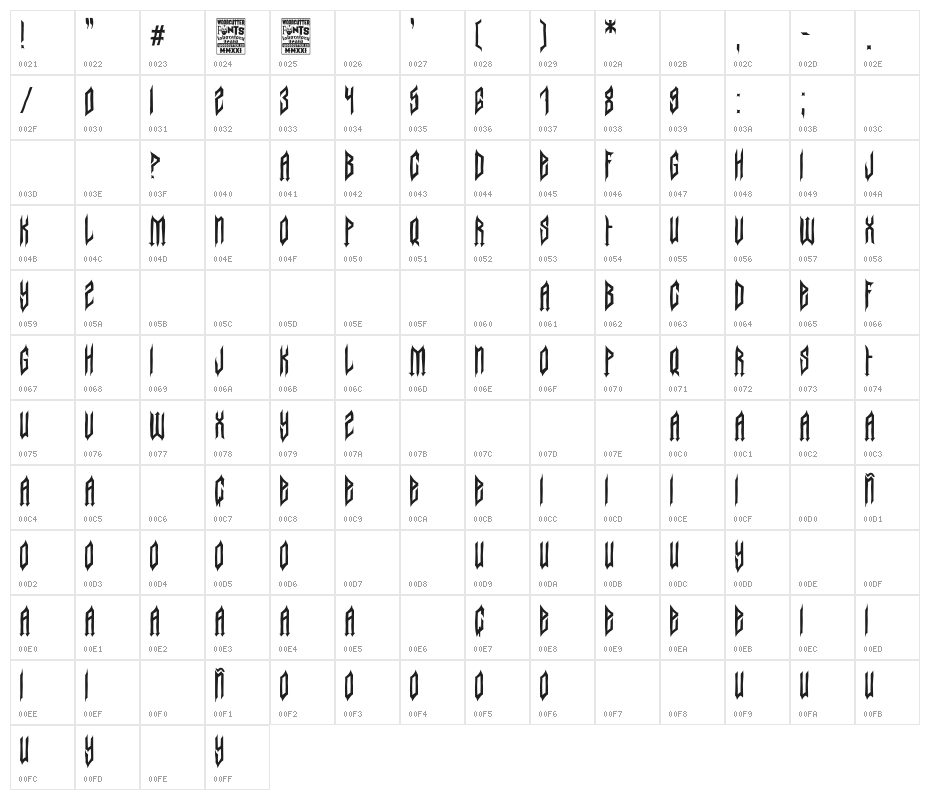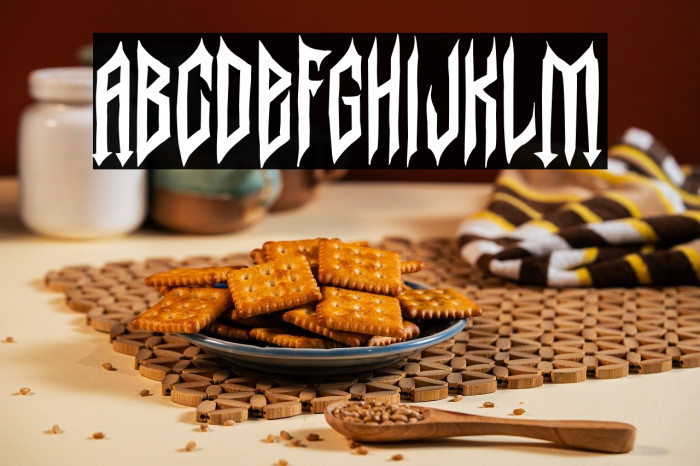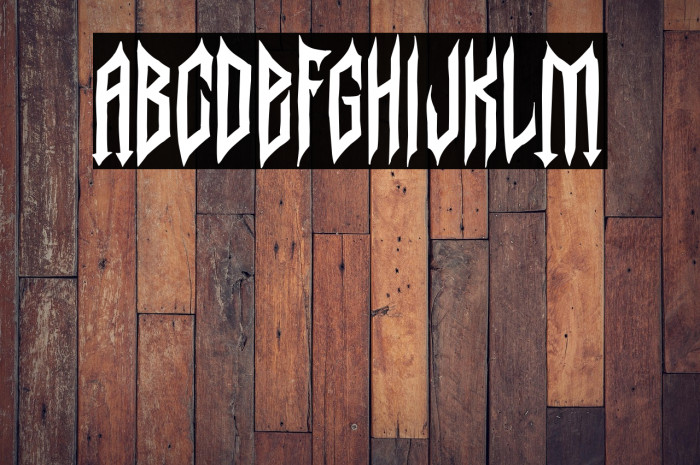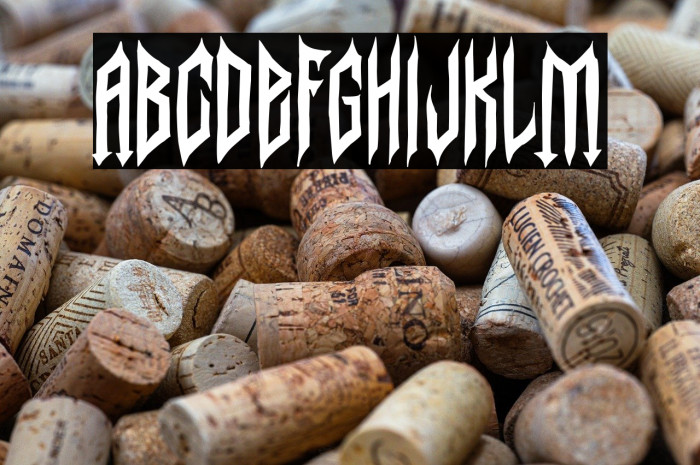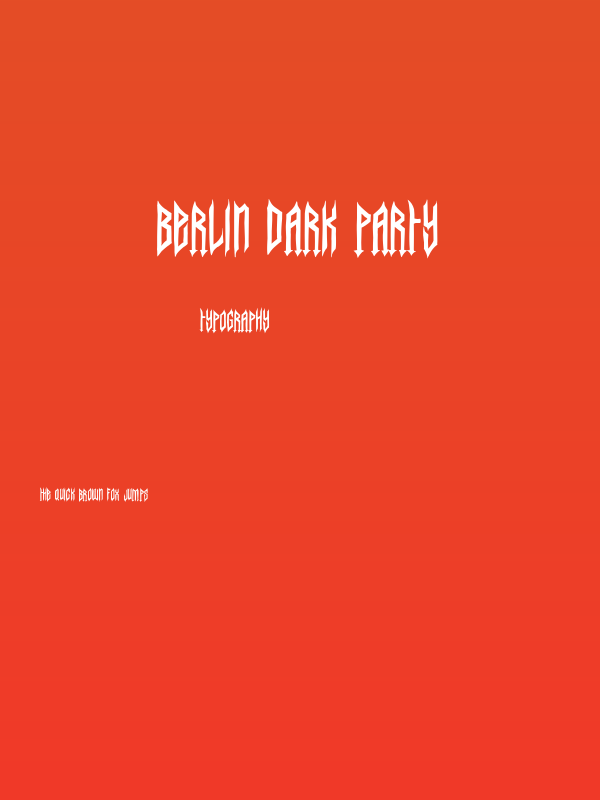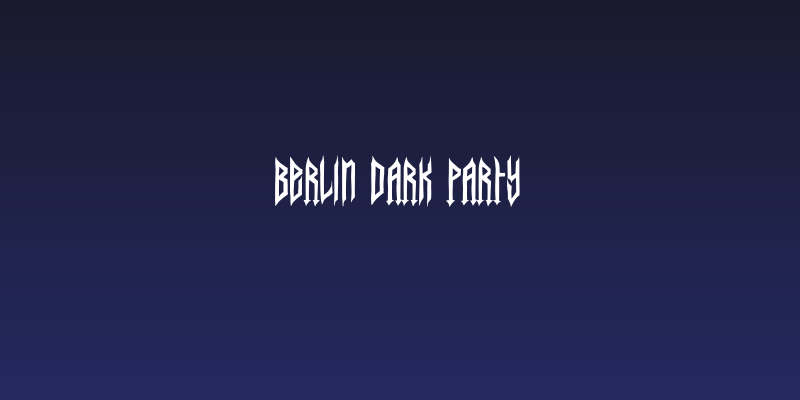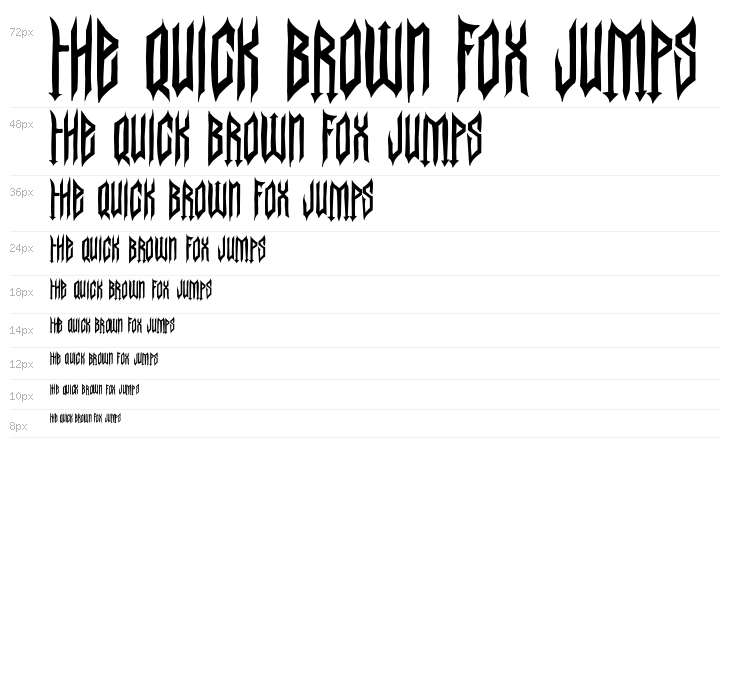
Berlin Dark Party Font
Berlin Dark Party Description
This font features a bold, angular design with sharp edges and a gothic-inspired aesthetic. The uppercase and lowercase letters are elongated and narrow, creating a striking and dramatic appearance. The numbers and special characters maintain the same sharp, edgy style, contributing to a cohesive look. The font's unique design elements make it stand out, with a strong emphasis on vertical lines and pointed serifs. It evokes a sense of mystery and intensity, suitable for projects that aim to capture attention and convey a bold statement.
| Proposed Projects | Ideal for use in event posters, album covers, branding for edgy or alternative products, and any project requiring a bold, attention-grabbing typeface. |